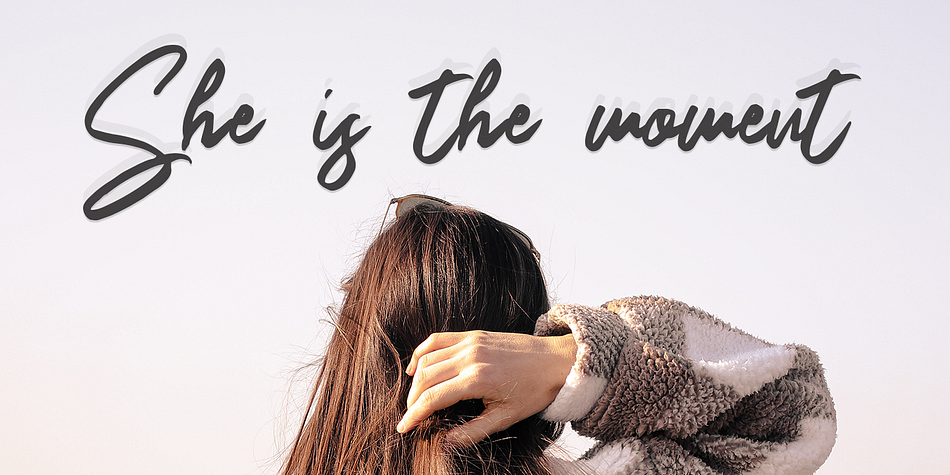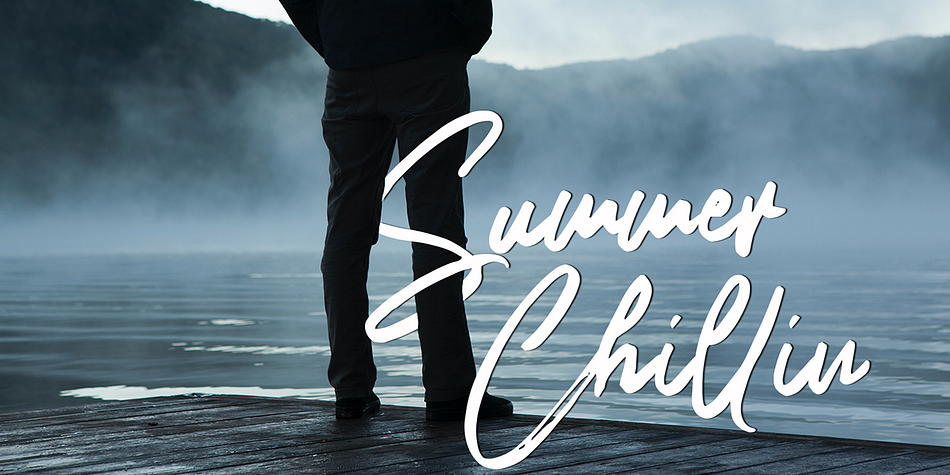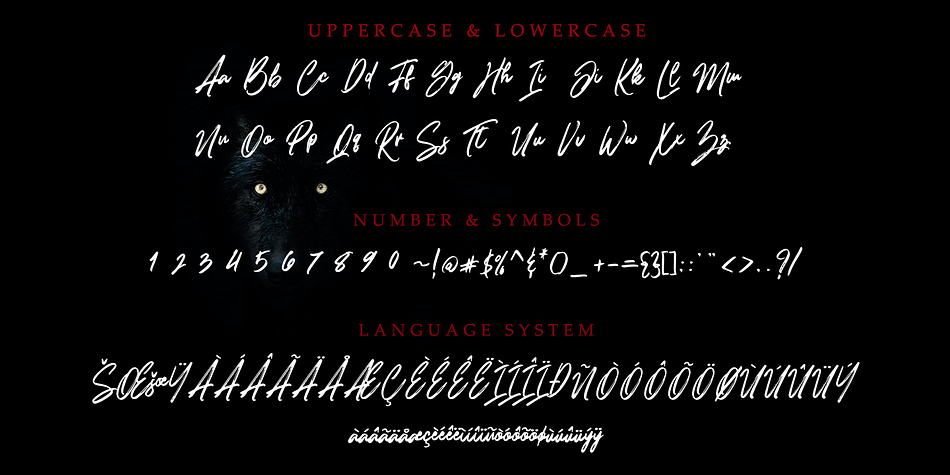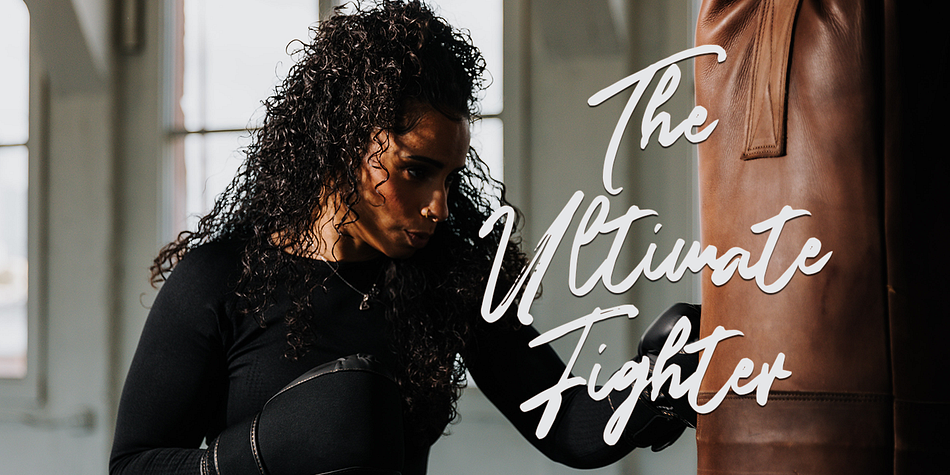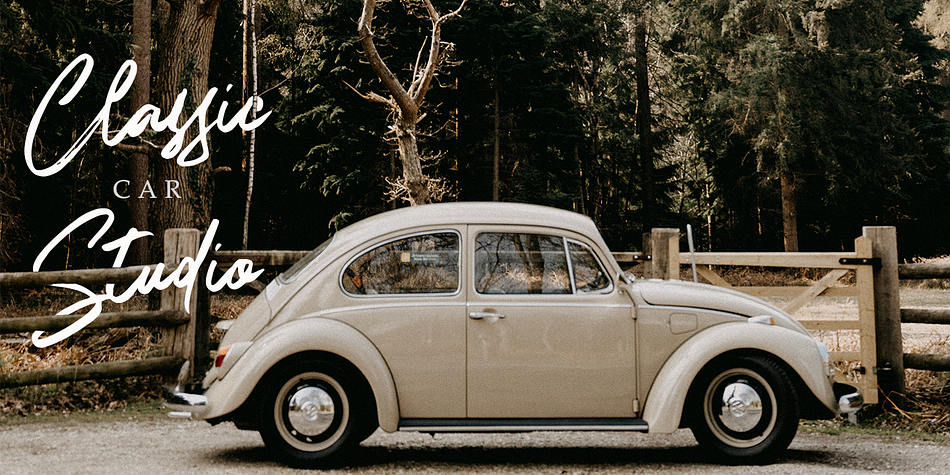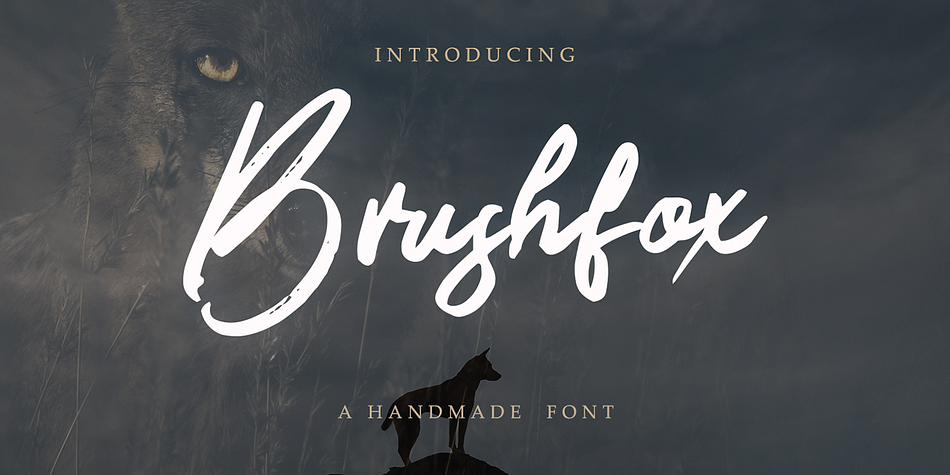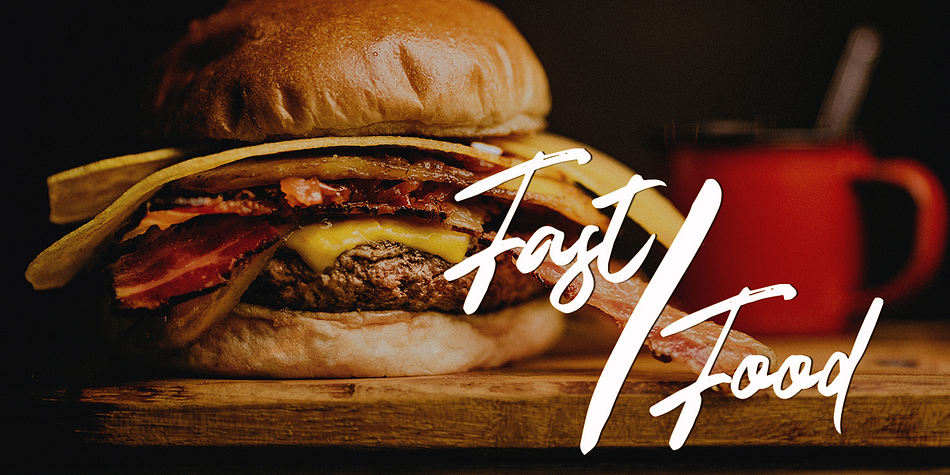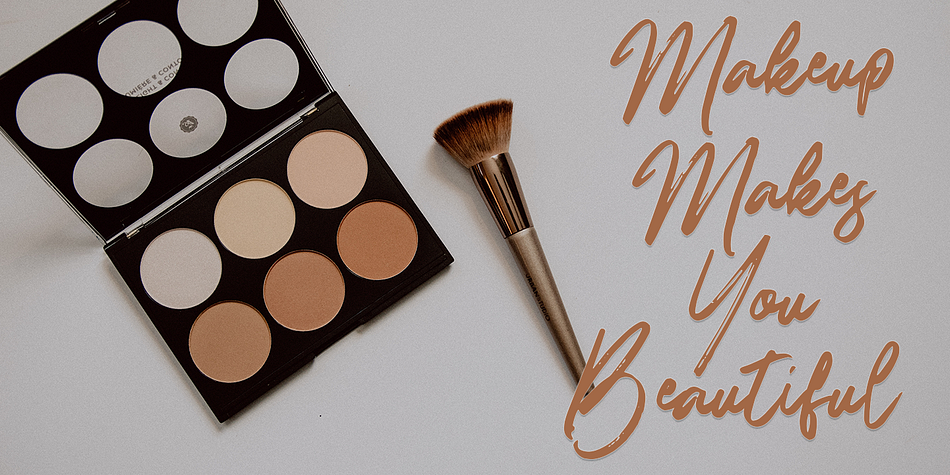
Brushfox
Brushfox is a brush script font family published by Gatype.
Brushfox is a brush script written in a relaxed and fast way. Letters made with brush pen on paper. It is then carefully scanned and drawn into vector format. That’s why Brushfox has organic, authentic and relaxed characteristics.
Brushfox has two sets of lowercase letters to give your text variety and a more natural look. You can enable Contextual Alternate in the OpenType panel to have these two sets vary randomly. It also has many style and underline alternatives which make your text and designs more attractive.
Brushfox has two versions Textured and Solid. The textured version has a dry brush pen texture and the Solid is a slightly cleaner version.